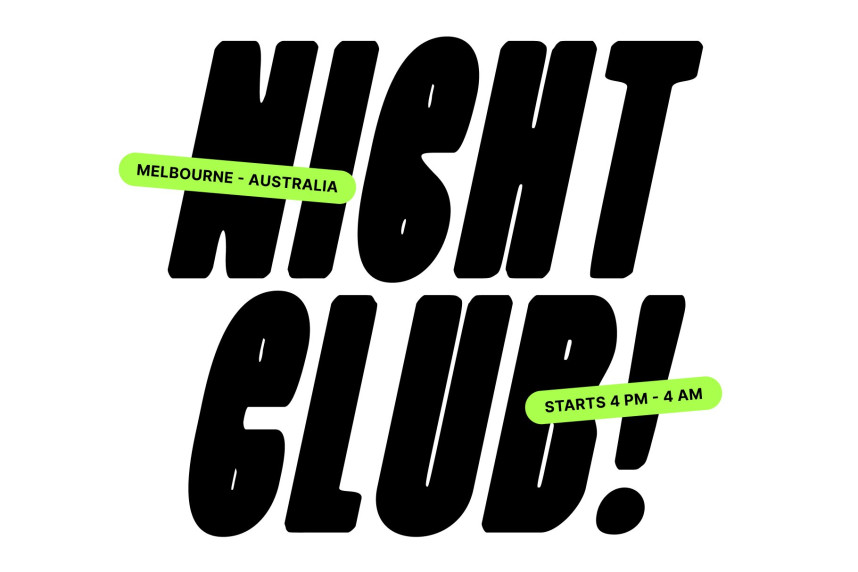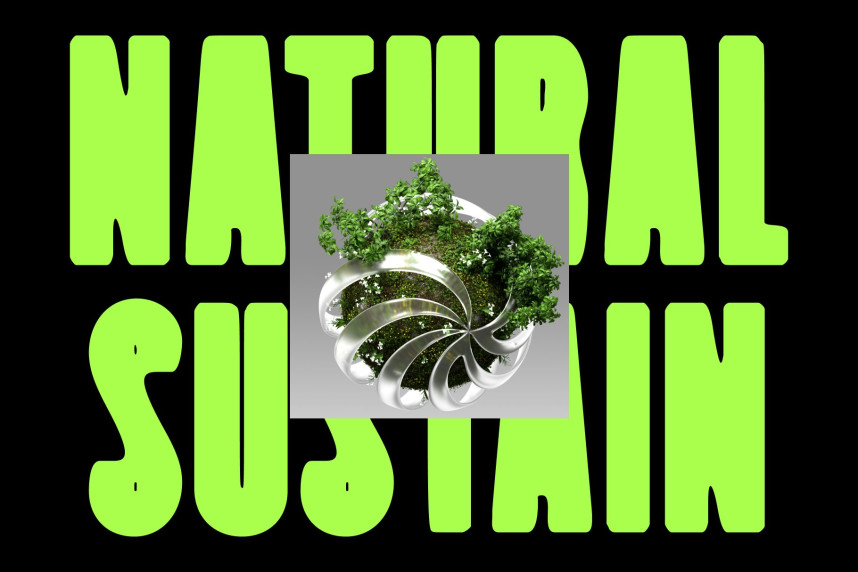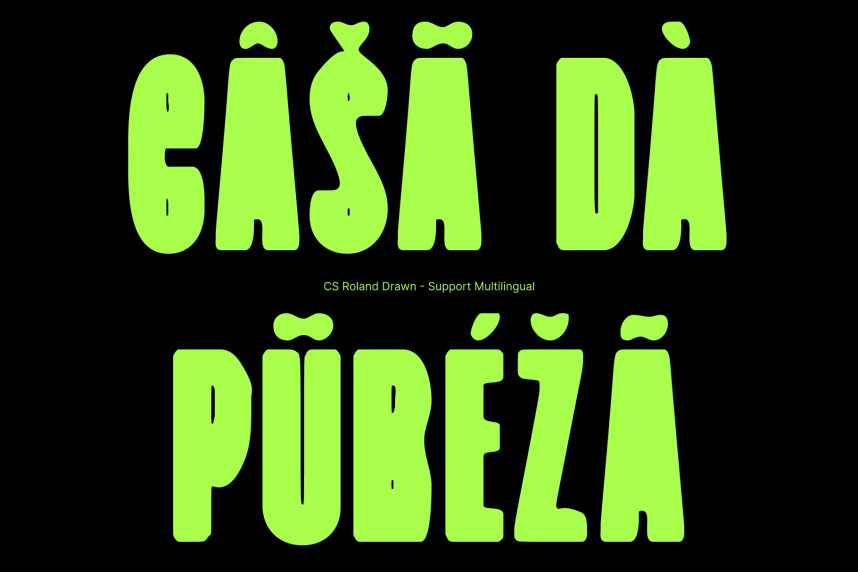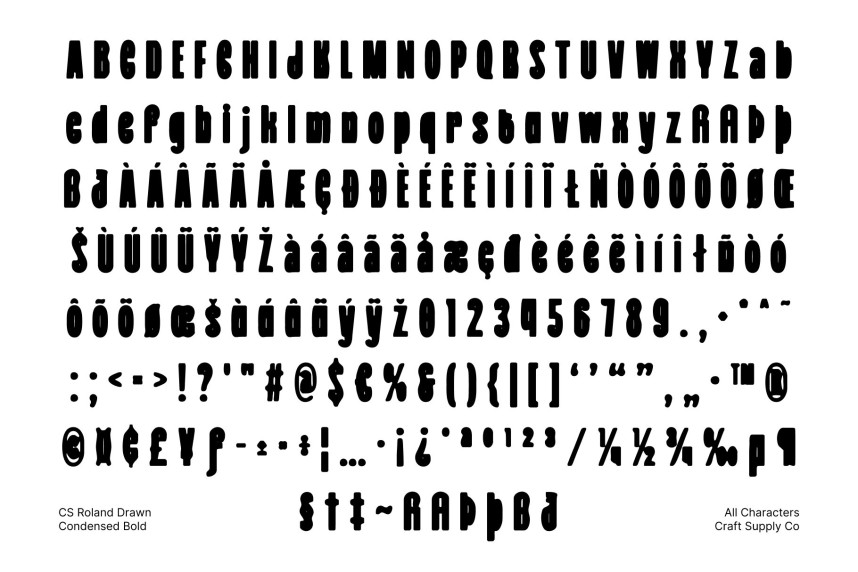
CS Roland Drawn Font
CS Roland Drawn Font – Bold Sans Serif Font with Natural Handcrafted Edge Strong, Minimalist, and Confident Design. This is a modern bold sans serif font built on clean, contemporary foundations and enhanced with a subtle hand-drawn texture. Its strong, well-defined letterforms communicate clarity and confidence, while the drawn effect introduces a natural, human touch that softens the minimalist structure. This balance creates a typeface that feels professional yet expressive.